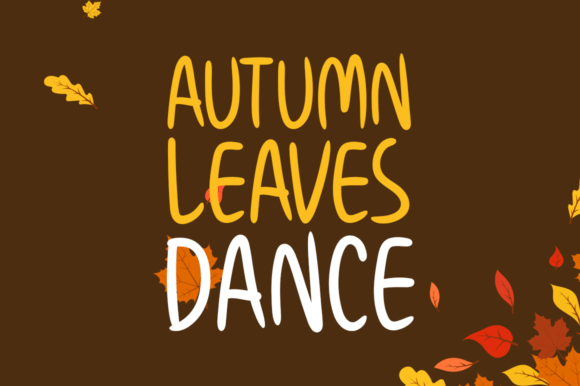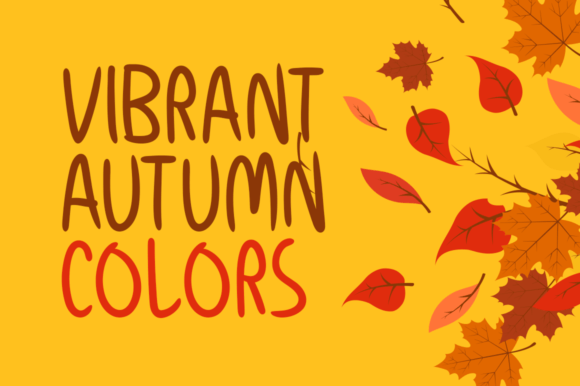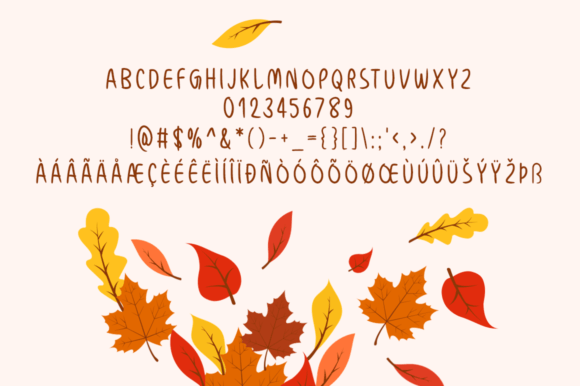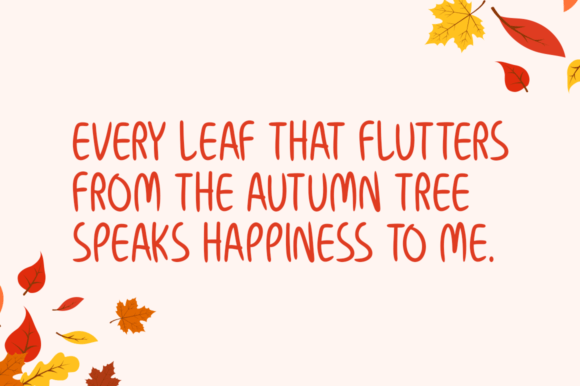
The Magic of Autumnal Font: A Designer’s New Best Friend
Autumnal is a pretty handwritten font that can easily be matched to an incredibly large set of projects. Its unique charm and character make it perfect for adding a personal touch to your designs. In this article, I’ll be sharing my honest review of Autumnal Font, a step-by-step guide on how to use it on different platforms, and some helpful tips and tricks to get the most out of this amazing font.
Autumnal Font: The Good, the Bad, and the Quirky
What I Love About Autumnal Font
- ✨ Unique and eye-catching handwritten style that’s perfect for making your designs stand out
- ✅ Highly versatile and can be used for a wide range of projects, from invitations and quotes to blog posts and social media graphics
- 💻 Excellent OpenType features, including glyphs and stylistic alternates, that allow for endless customization options
- 🌟 Beautifully crafted to evoke the warm, cozy feeling of autumn
While Autumnal Font is an amazing addition to any design project, there are a few things to keep in mind:
- 🤔 Some users may find the font a bit too ornate or decorative for certain projects, such as formal documents or body text
The Story Behind Autumnal Font
While the true story behind Autumnal Font remains a mystery, it’s easy to imagine that it was crafted with love and care by a designer who wanted to capture the magic of the autumn season. Perhaps they drew inspiration from the changing leaves, the cozy warmth of a crackling fire, or the rustic charm of a country pumpkin patch. Whatever the inspiration, Autumnal Font is a true masterpiece that’s sure to delight designers and crafty hobbyists alike.
| Font Name | Autumnal Font |
| Author | Seemly Fonts |
Q: What type of projects is Autumnal Font best suited for?
A: Autumnal Font is highly versatile and can be used for a wide range of projects, from invitations and quotes to blog posts and social media graphics.
Q: Does Autumnal Font come with OpenType features?
A: Yes, Autumnal Font includes a range of OpenType features, including glyphs and stylistic alternates, that allow for endless customization options.